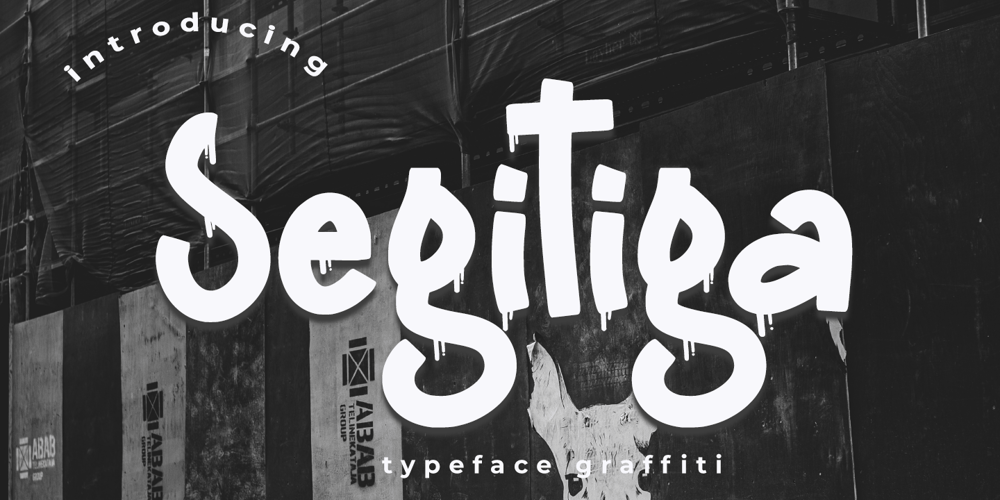
Segitiga Font Family was designed by Muhammad Zaini and published by Cocodesign. Segitiga contains 1 styles and family package options. Unveiling segitiga a distinctive Brush Calligraphy Font born in March 2024. This skillfully crafted typeface harmonizes street style with a futuristic flair. Its unique characteristic makes it the perfect fit for an array of design requirements, be its branding efforts, modern advertising designs, art quotes, or book and cover titles. It adds an exclusive touch to special events while also making an impact on custom merchandise like mugs, pillows, t-shirts, and any other brush lettering needs. The secondary font utilized in this creation is Free Neue Font. Experience the cool, forward-thinking appeal of Triangle, where every stroke tells a story.